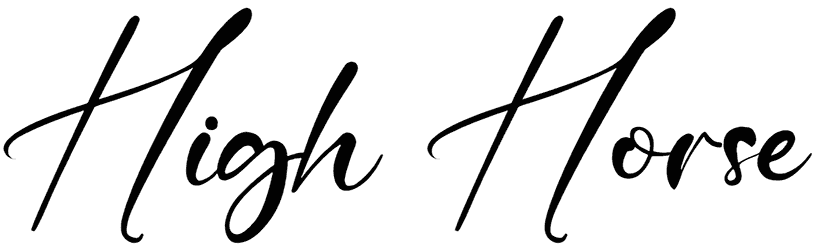
High Horse Font
The distinctive shape and style of the High Horse immediately attract attention and are genuinely an option worth trying. This script font is a digital format of hand-drawn letters that can be used in marketing, website headers, and social media graphics.
If you haven’t used cursive fonts to give life to your writings, it’s probably a good time to consider this font as the first option to unleash the power hidden in these handwritten notes.